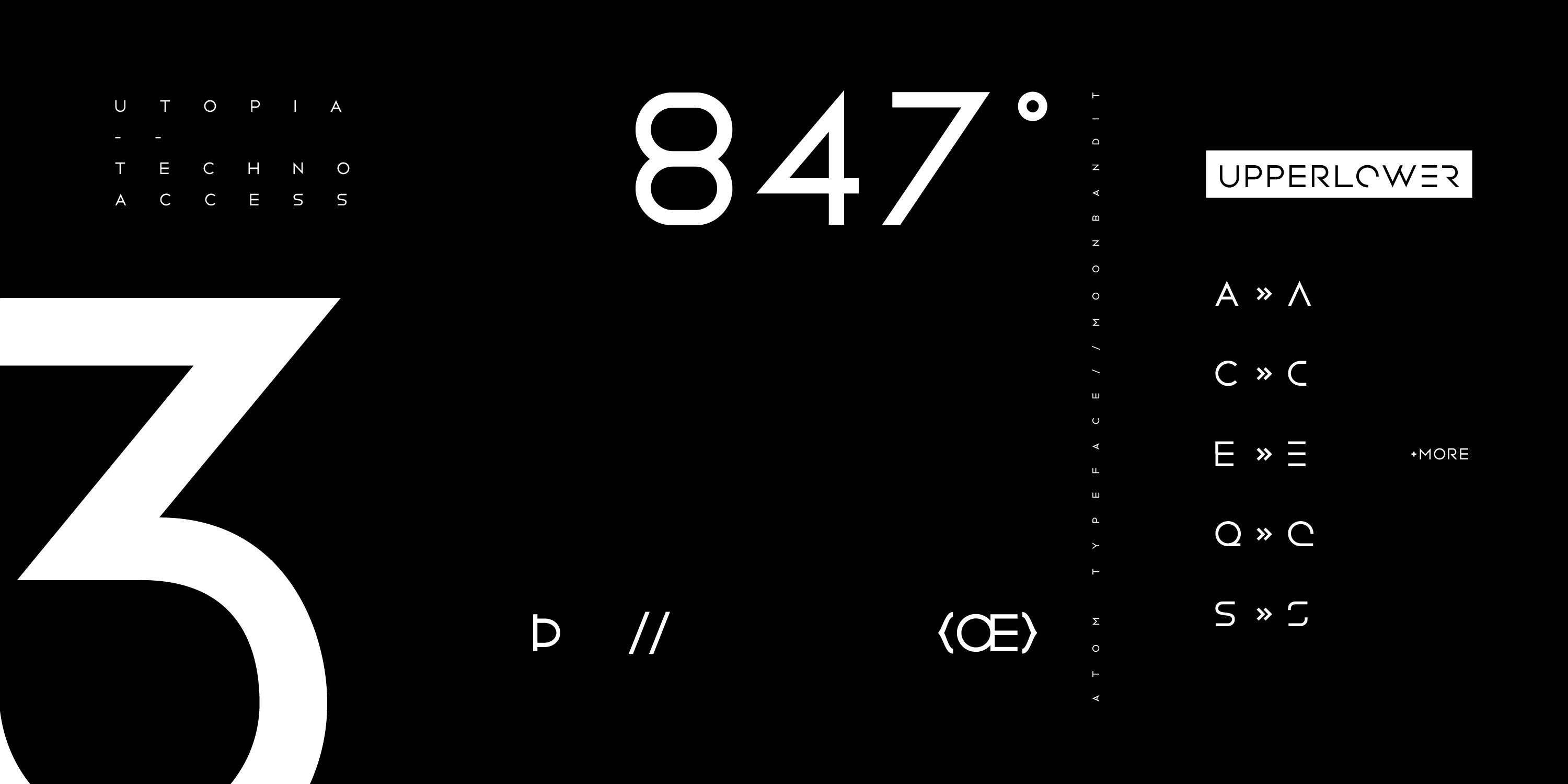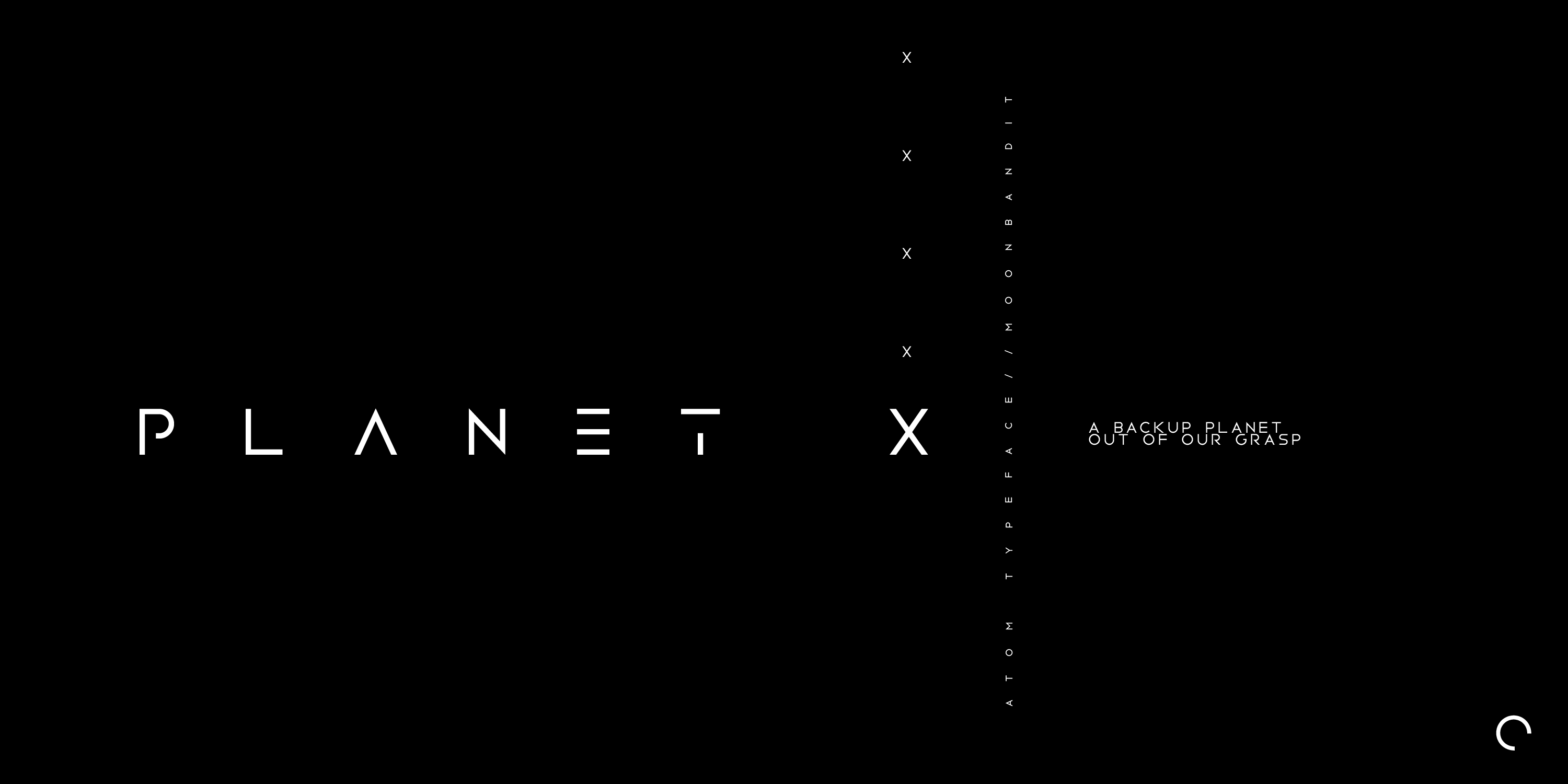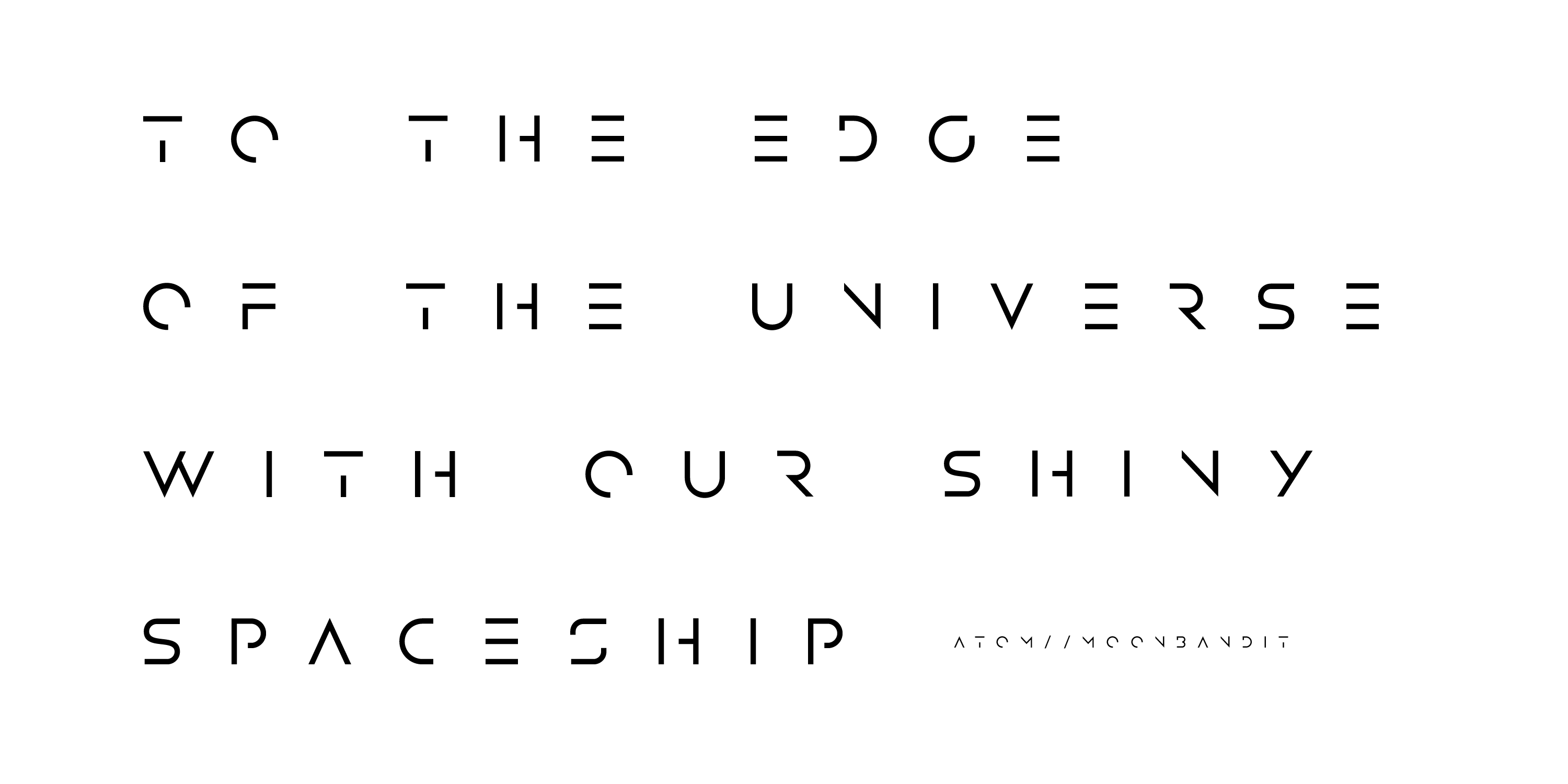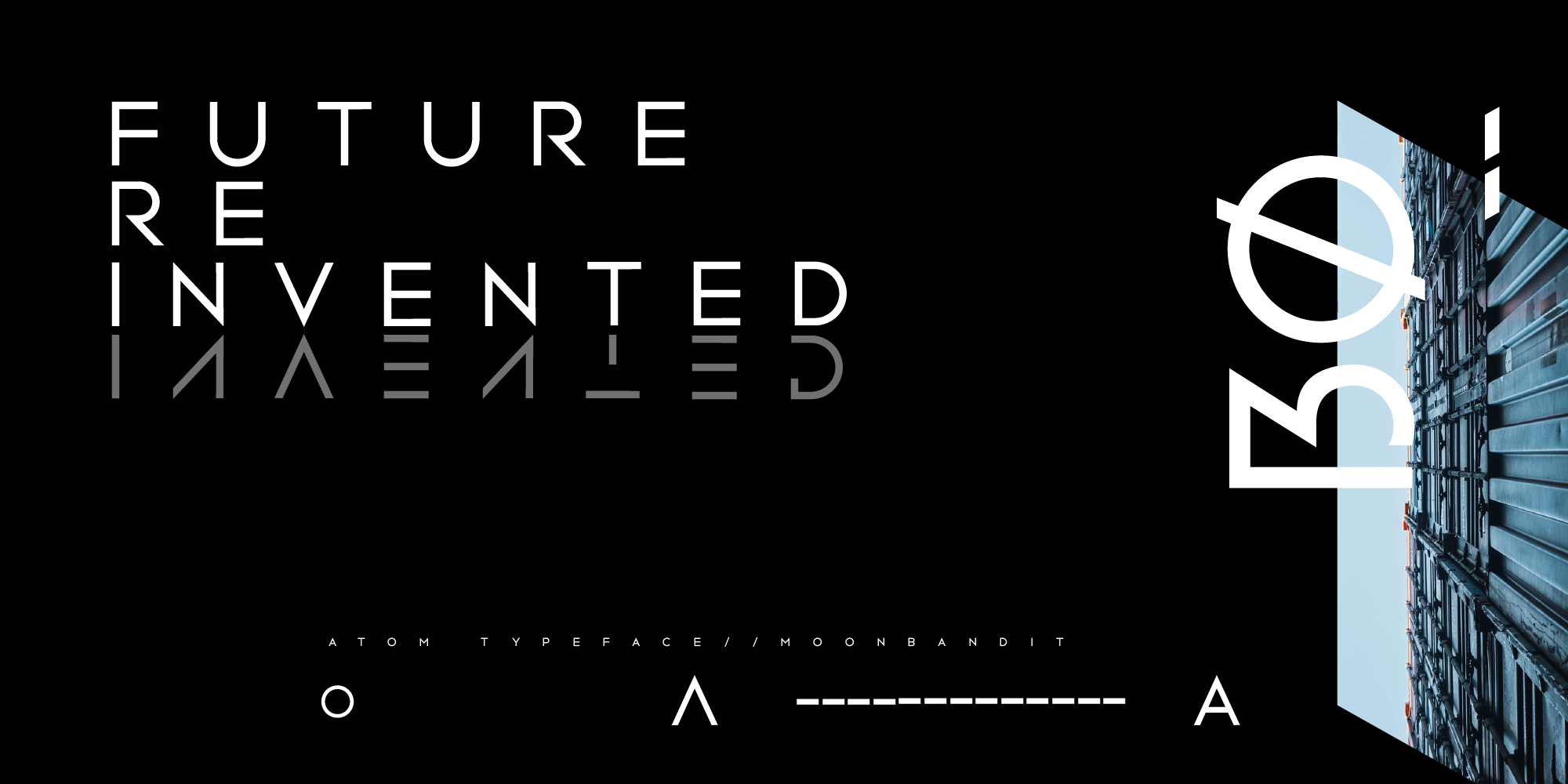
MBF Atom
The smallest particle known is called an atom
Atom is a new generation of an all caps futuristic sans serif font. Thin geometric lines with sharp edges to ensure a striking exposure. Perfect for display, logotype, headline, and many more. Easy to use, simply manage the lowercase to acquire the alternative glyphs.